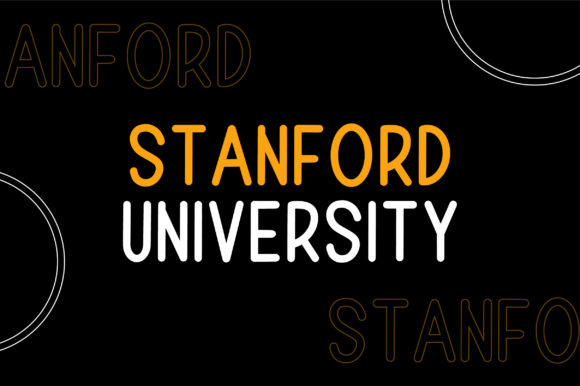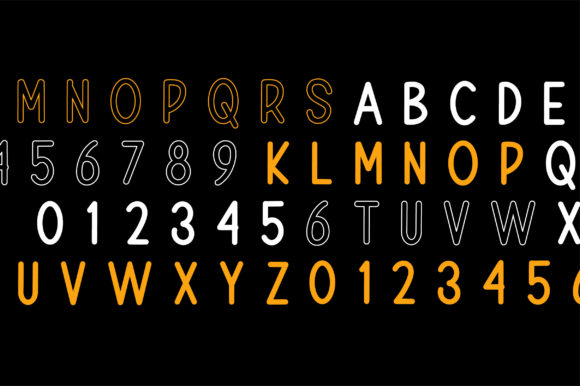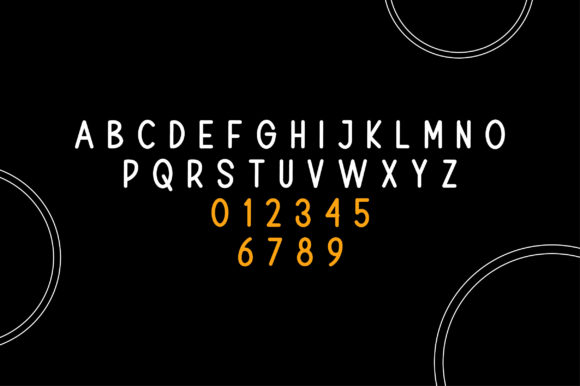
The Brane Font: A Simple yet Stunning Handwritten Delight
I’ll never forget the moment I stumbled upon the Brane font while working on a wedding invitation project for a dear friend. I had been searching for the perfect font for hours, trying out various options, but nothing seemed quite right. That’s when I saw Brane – a simple, clean, and adaptable handwritten font that instantly caught my eye. Its ravishing style won me over, and I knew I had found the one. In this article, I’ll share my love for Brane, its features, and how to make the most of it in your designs.
An Honest Review of Brane Font
What I Love About Brane ✨
- ✅ Simple yet elegant handwritten style
- ✅ Clean and adaptable design
- ✅ Perfect for wedding invitations, stationery, social media posts, and more
- ✅ Easy to read and pairs well with various design elements
- ⚠️ Limited character set compared to some other fonts
- ⚠️ May not be suitable for very large or very small font sizes
- Experiment with OpenType features, such as ligatures and stylistic alternates, to add visual interest to your design
The Story Behind Brane Font
Brane was designed by a talented type designer who wanted to create a simple yet elegant handwritten font. Inspired by the beauty of handwritten letters, the designer crafted Brane to be a versatile and adaptable font that’s perfect for a variety of design projects. With its clean lines and classic style, Brane has become a popular choice among designers and crafters.
Q: Is Brane font suitable for body text?
A: While Brane is a beautiful font, it’s best suited for headlines and titles rather than body text. Its elegant style may not be suitable for long blocks of text.